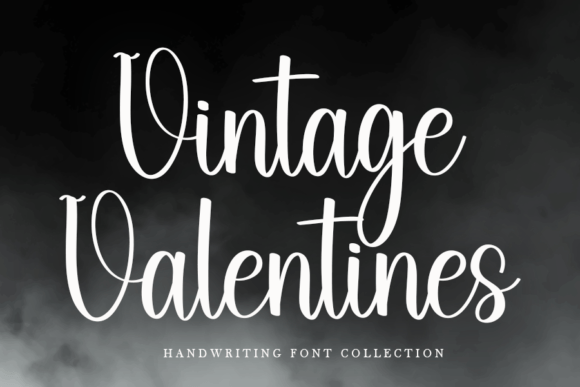
Step into a world of vintage charm and heartfelt expressions with Vintage Valentines, a script font family that exudes warmth and authenticity. Inspired by the timeless allure of handwritten letters, this font captures the essence of love and nostalgia, adding a touch of whimsy and elegance to your creative endeavors.
With its playful curves and delicate swashes, Vintage Valentines dances across the page, evoking memories of cherished moments and heartfelt sentiments. This font is a true testament to the enduring power of handwritten communication, transporting you to a simpler time when words held deeper meaning.
Whether you're a seasoned designer or a passionate crafter, Vintage Valentines is the perfect choice for adding a personal touch to your projects. Its versatile style lends itself to a wide range of applications, from heartfelt wedding invitations and charming greeting cards to eye-catching social media posts and heartwarming DIY projects.
Imagine your Instagram feed adorned with beautifully scripted quotes, each letter dancing with grace and charm. Your followers will be captivated by the authenticity and warmth that Vintage Valentines brings to your content, making your posts stand out from the crowd.
In the realm of calligraphy, Vintage Valentines shines as a true star. Its flowing lines and elegant flourishes make it ideal for creating custom lettering and stunning artwork. Whether you're designing posters, invitations, or even personalizing gifts, this font will transform your creations into cherished keepsakes.
But Vintage Valentines is more than just a beautiful font; it's an invitation to express yourself with authenticity and passion. With its ability to evoke emotions and create a lasting impression, this font will elevate your designs to new heights, leaving your audience captivated and inspired.
So, embark on a creative journey with Vintage Valentines, and let your imagination soar. Discover the magic of handwritten charm and heartfelt expressions, and create designs that speak to the soul. Let Vintage Valentines be your creative companion, guiding you towards a world of beauty, nostalgia, and timeless elegance.